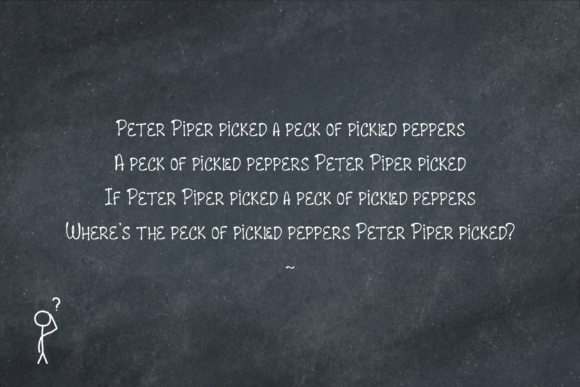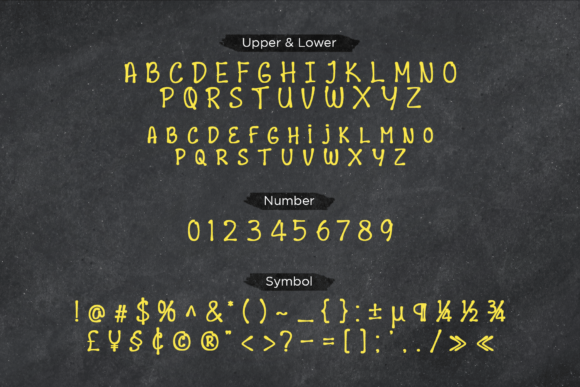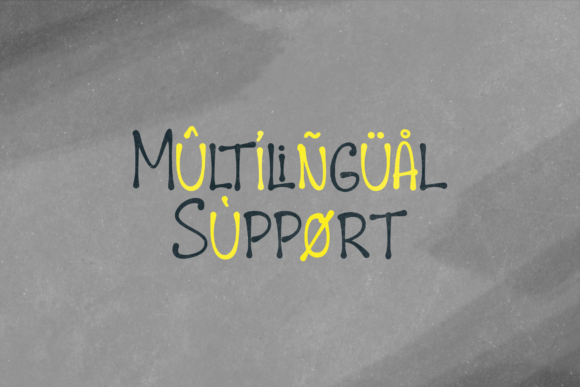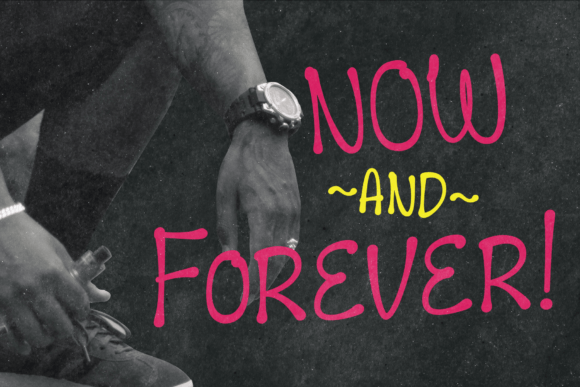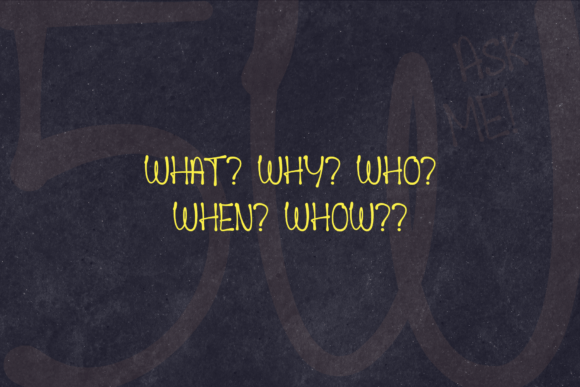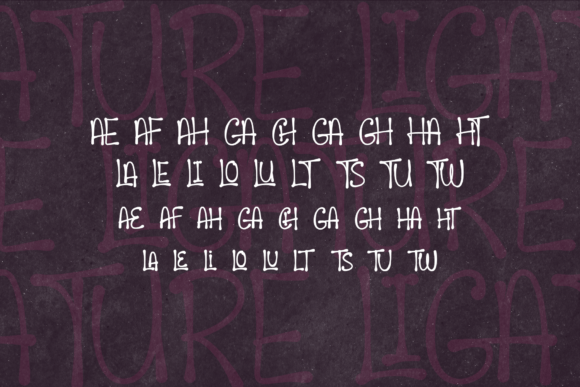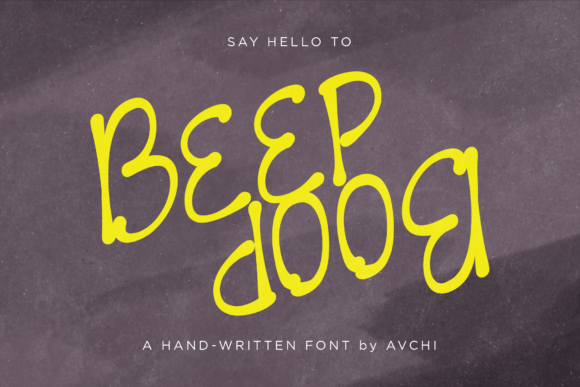
Introducing Beep Boop Font: The Ultimate Choice for Creative Projects
In the world of typography, few fonts have managed to capture the essence of hand lettering as effortlessly as Beep Boop. This distinctive and innovative handwritten font has been making waves in the design community, and for good reason. With its unique style and bold strokes, Beep Boop is the perfect choice for designers and crafters looking to add a touch of personality and creativity to their projects.
The Story Behind Beep Boop
Beep Boop is more than just a font – it’s an expression of creativity and individuality. Its origins lie in the desire to create a typeface that embodies the fluidity and expressiveness of hand lettering. The result is a font that is both playful and sophisticated, making it suitable for a wide range of applications.
What Makes Beep Boop Stand Out
So, what sets Beep Boop apart from other fonts? Here are a few key features that make it a standout choice:
- Unique Style: Beep Boop boasts a one-of-a-kind design that is sure to grab attention. Its bold strokes and fluid lines give it a dynamic feel that is hard to replicate.
- Handwritten Charm: Unlike generic fonts, Beep Boop has a warm, handwritten quality that adds a personal touch to any project.
- Versatility: Whether you’re working on branding, advertising, or creative projects, Beep Boop adapts seamlessly to different contexts.
Using Beep Boop in Your Designs
Beep Boop is incredibly versatile, making it suitable for a variety of design applications. Here are some ideas to get you started:
- Branding: Use Beep Boop to create a unique and memorable brand identity. Its bold and playful style makes it perfect for logos, business cards, and letterheads.
- Advertising: Add a touch of personality to your ad campaigns with Beep Boop. Its eye-catching design is sure to grab attention and leave a lasting impression.
- Creative Projects: From invitations and posters to social media graphics and digital art, Beep Boop is the perfect choice for adding a creative flair to your projects.
Tips for Pairing Beep Boop with Other Fonts
While Beep Boop is stunning on its own, pairing it with complementary fonts can elevate your designs to the next level. Here are some tips for pairing Beep Boop with other fonts:
- Contrast: Pair Beep Boop with a clean, sans-serif font to create a striking contrast that adds visual interest to your design.
- Harmony: For a more cohesive look, pair Beep Boop with a font that shares similar characteristics, such as a handwritten or script font.
Beep Boop is more than just a font – it’s a design statement. With its unique style, bold strokes, and handwritten charm, it’s the perfect choice for designers and crafters looking to add a touch of personality and creativity to their projects. Whether you’re working on branding, advertising, or creative projects, Beep Boop is sure to make your designs stand out. So why wait? Download Beep Boop today and unleash your creativity!